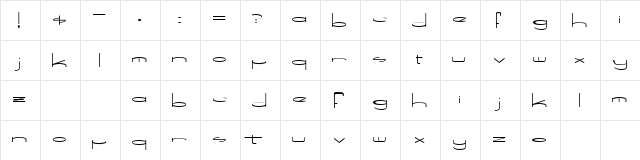
Speed Bowling Regular Font Preview
Speed Bowling Regular
Speed Bowling Regular Font Details
Design Context for Speed Bowling Typeface
Speed Bowling is a composed and adaptable typeface that performs quietly and consistently across a wide range of design contexts.